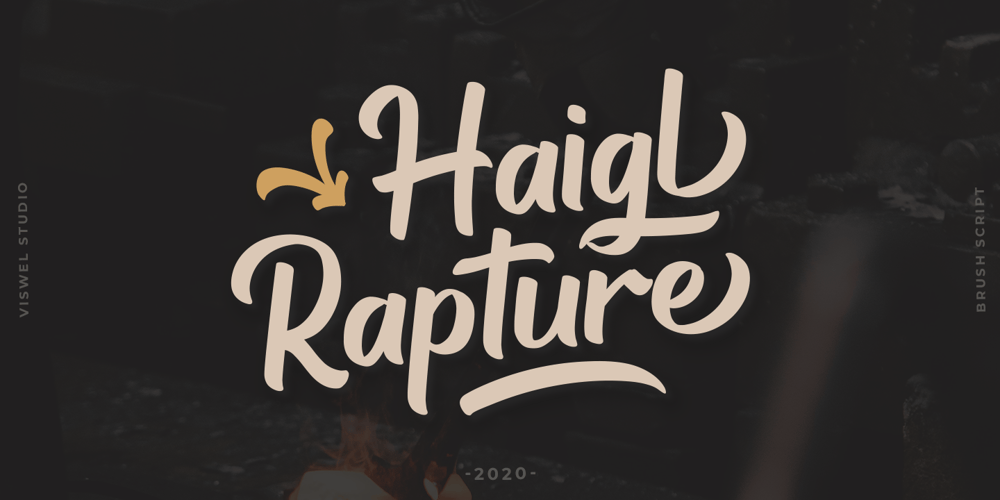
Haigl Rapture Font Family was designed by Agam Rahmadan and published by Viswell. Haigl Rapture contains 1 styles and family package options. Haigl Rapture is a unconnected script with a varied brush style.This font is contains stylistic alternates, ligatures, and swashes. It is suitable for logos, branding, and another design projects.